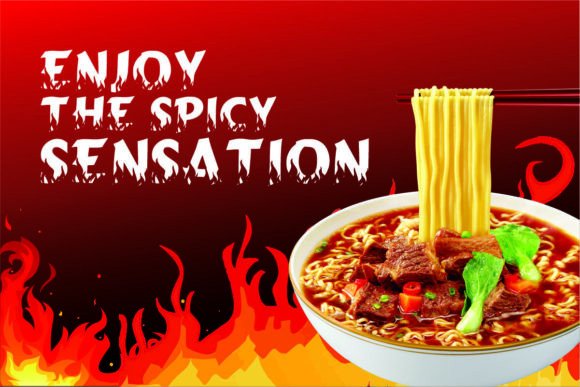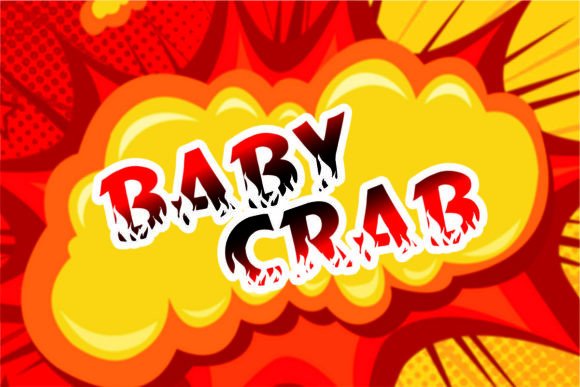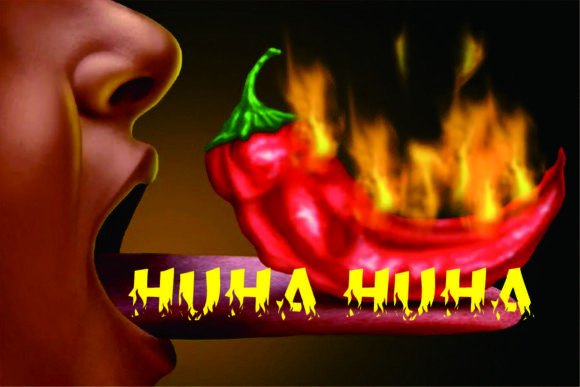
Introduction to Hotfire Font
Hotfire is a creative and hot display font.
Whether you’re using it for banner designs, food, digital designs, logos, presentations, or food posters, this font is the perfect choice .
Hotfire Font offers exceptional quality and versatility, making it a valuable addition to your design toolkit. Whether you’re creating for personal projects or commercial use, Hotfire Font delivers professional results.